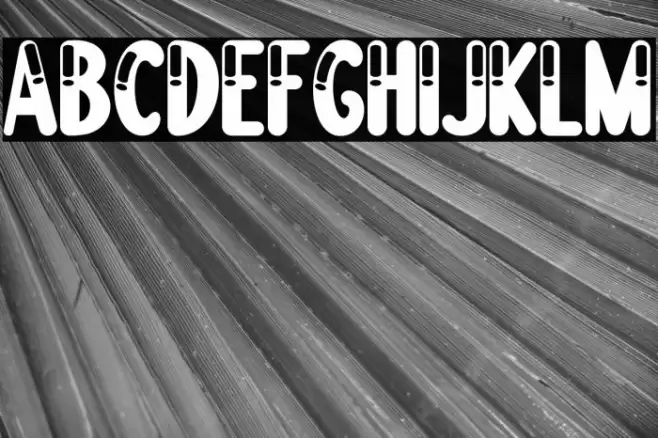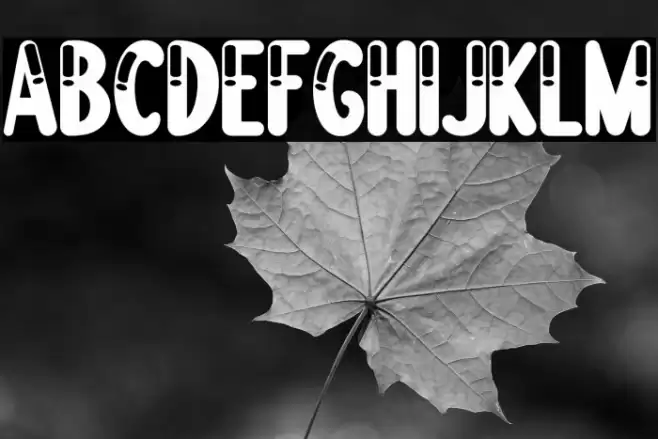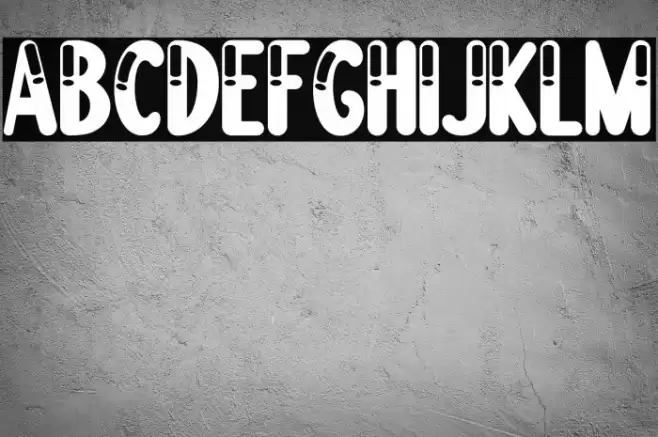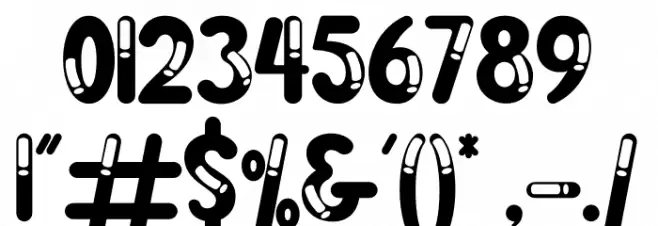
Boogie worth Three Font
This playful and bold font features a unique design with rounded edges and a distinct, bubbly appearance. Each character is adorned with small, circular cutouts that add a whimsical touch, reminiscent of cartoon-like styles. The font maintains a consistent thickness throughout, giving it a solid and impactful presence. Its quirky and fun nature makes it ideal for projects that require a lively and energetic vibe. The characters are well-spaced, ensuring readability while maintaining a cohesive look. This font is perfect for creative projects that aim to capture attention and convey a sense of fun and excitement.
A playful, bold font with rounded edges and whimsical cutouts from Uncategorized fonts.
- Proposed Projects: Ideal for children's books, playful branding, party invitations, and creative posters.
- Overall Style: Playful, Whimsical